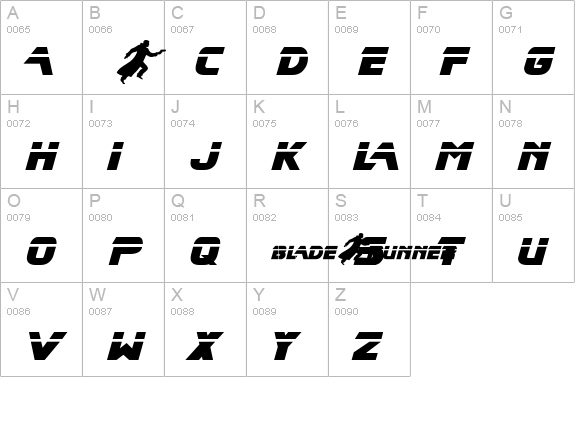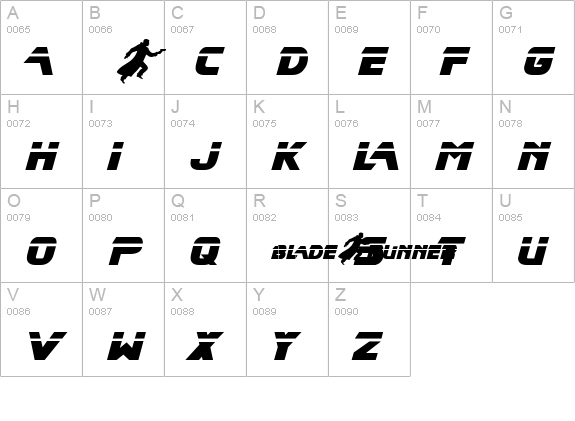
Introducing Blade Runner Movie Font 2, a sleek and futuristic typeface inspired by the iconic typography of the Blade Runner movie franchise. This font exudes a sense of cyberpunk elegance, perfect for projects that require a touch of sci-fi flair. With its sharp angles and dynamic letterforms, Blade Runner Movie Font 2 captures the essence of a dystopian future world. The best part? Blade Runner Movie Font 2 is completely free to download at FontsMarket.com. Whether you're designing a poster, creating digital art, or crafting a logo, this font will add that extra edge to your work. Don't miss out on this opportunity to elevate your designs with this striking and versatile typeface. Download Blade Runner Movie Font 2 today and let your creativity soar into the future.